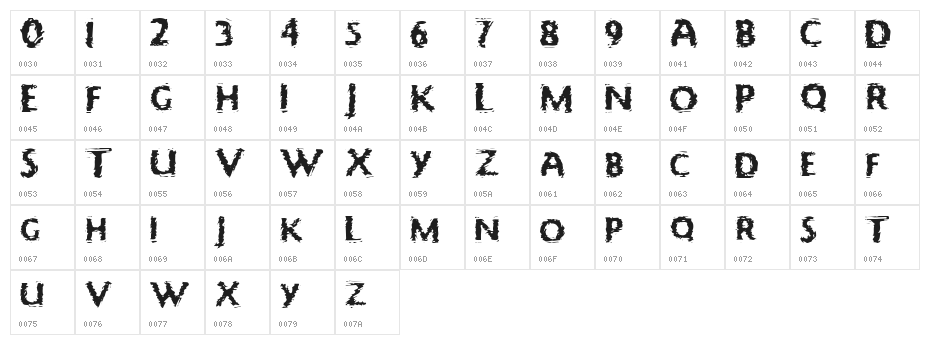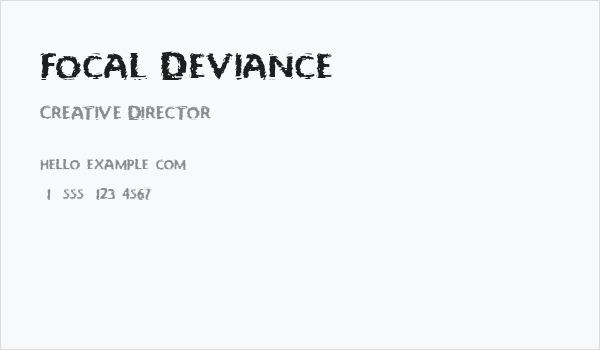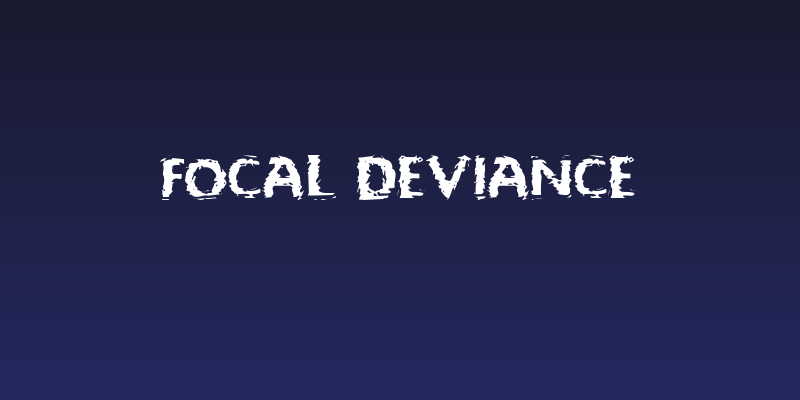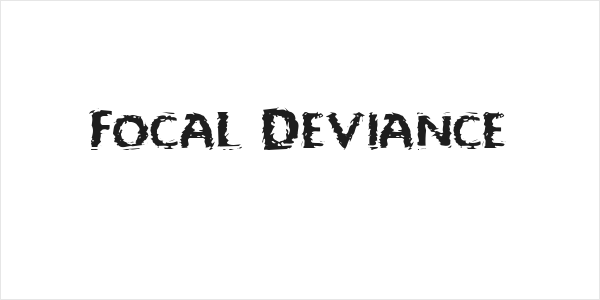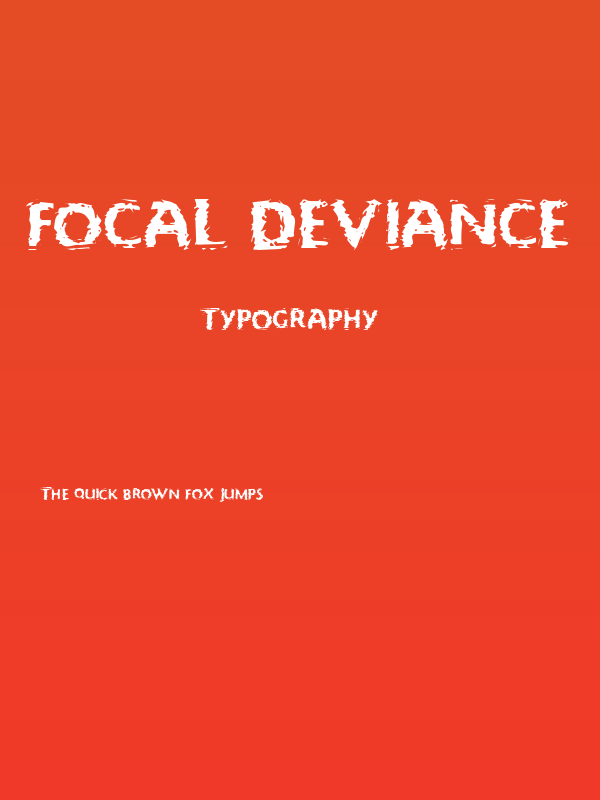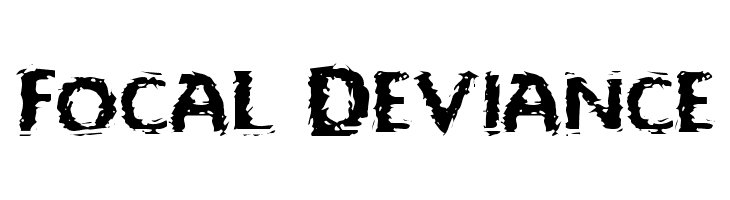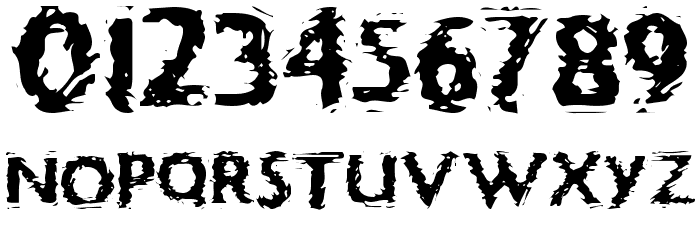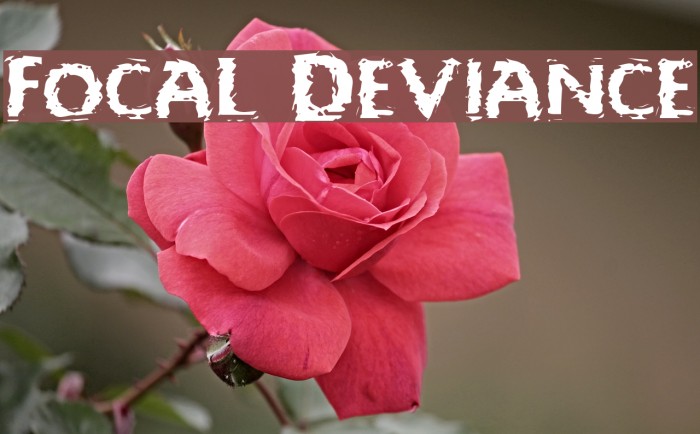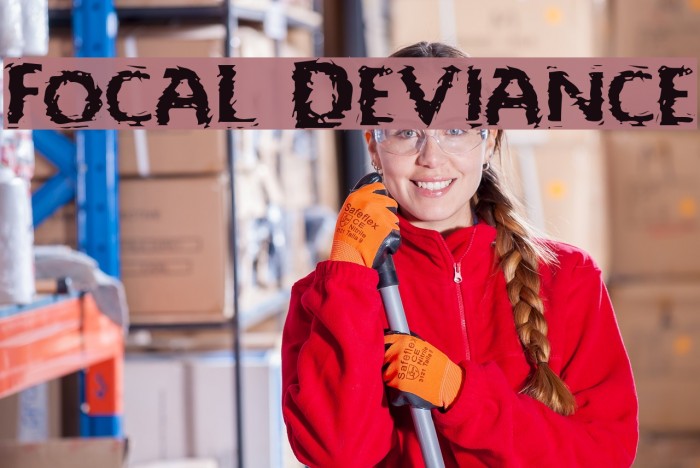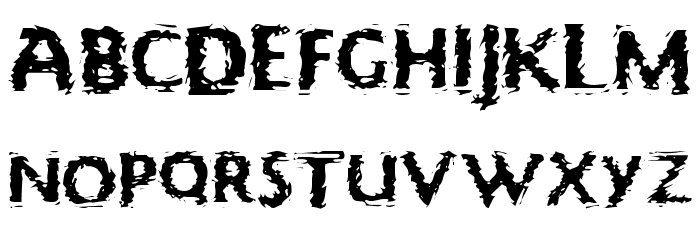
Focal Deviance Font
Focal Deviance Description
This font features a bold and distressed style, with characters that appear as if they have been weathered or eroded over time. The edges are rough and irregular, giving it a grunge or urban aesthetic. Each letter and number is uniquely textured, adding to the chaotic and dynamic feel of the typeface. The design is eye-catching and unconventional, making it suitable for projects that require a strong visual impact. The font maintains legibility despite its rugged appearance, with consistent character height and width.
| Overall Style | Grunge, Urban |
| Proposed Projects | Ideal for album covers, posters, streetwear branding, and edgy graphic designs. |